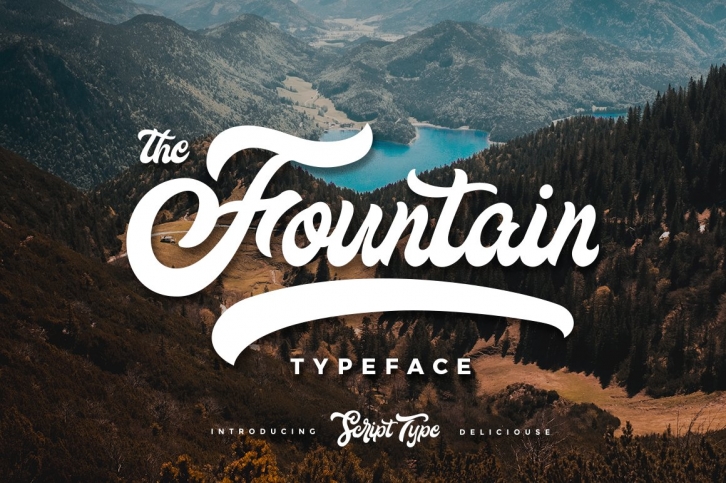
The Fountain Typeface is a script typeface come with aesthetic and bold character. You can use it as a logo, insignia, badge quote, packaging, headline, poster, t-shirt/apparel, greeting card, and wedding invitation etc. Every glyphs are ideal to make an attractive quote, design. The Alternate characters come with different shapes, could you help to create some creative designs for adventure, travel, wedding, or anything you want.